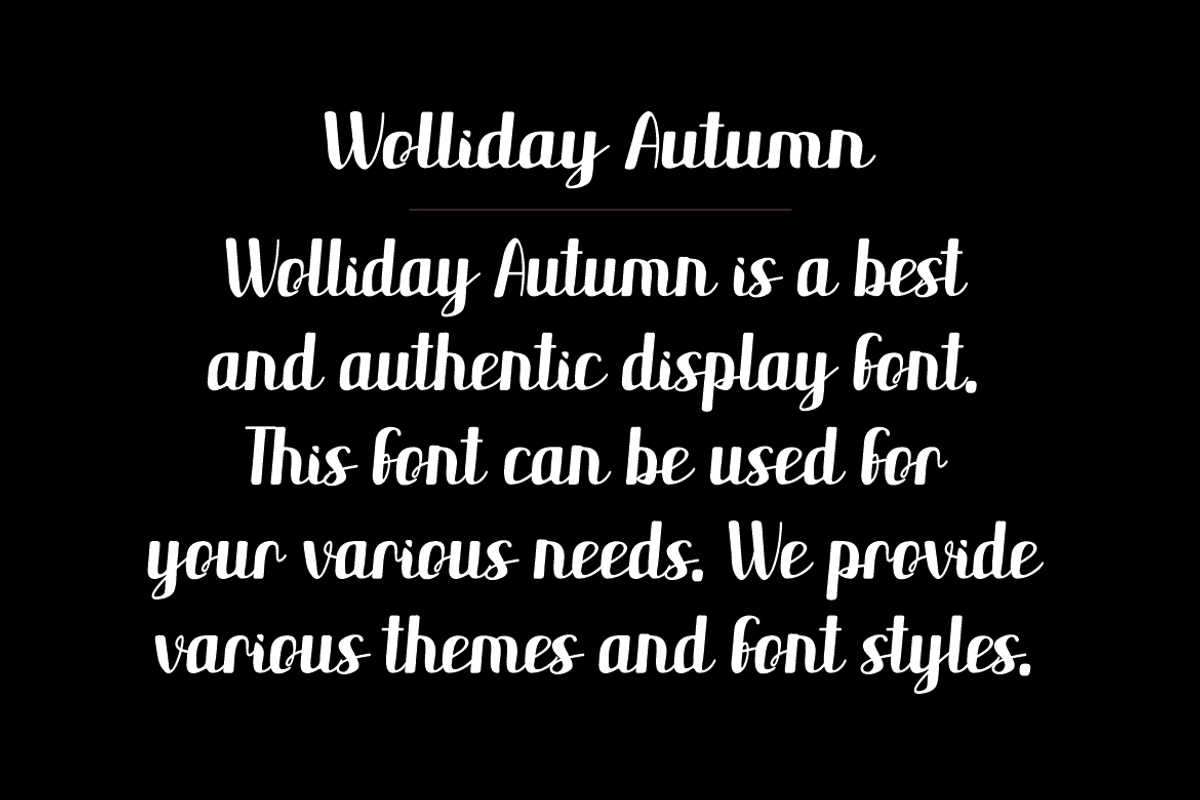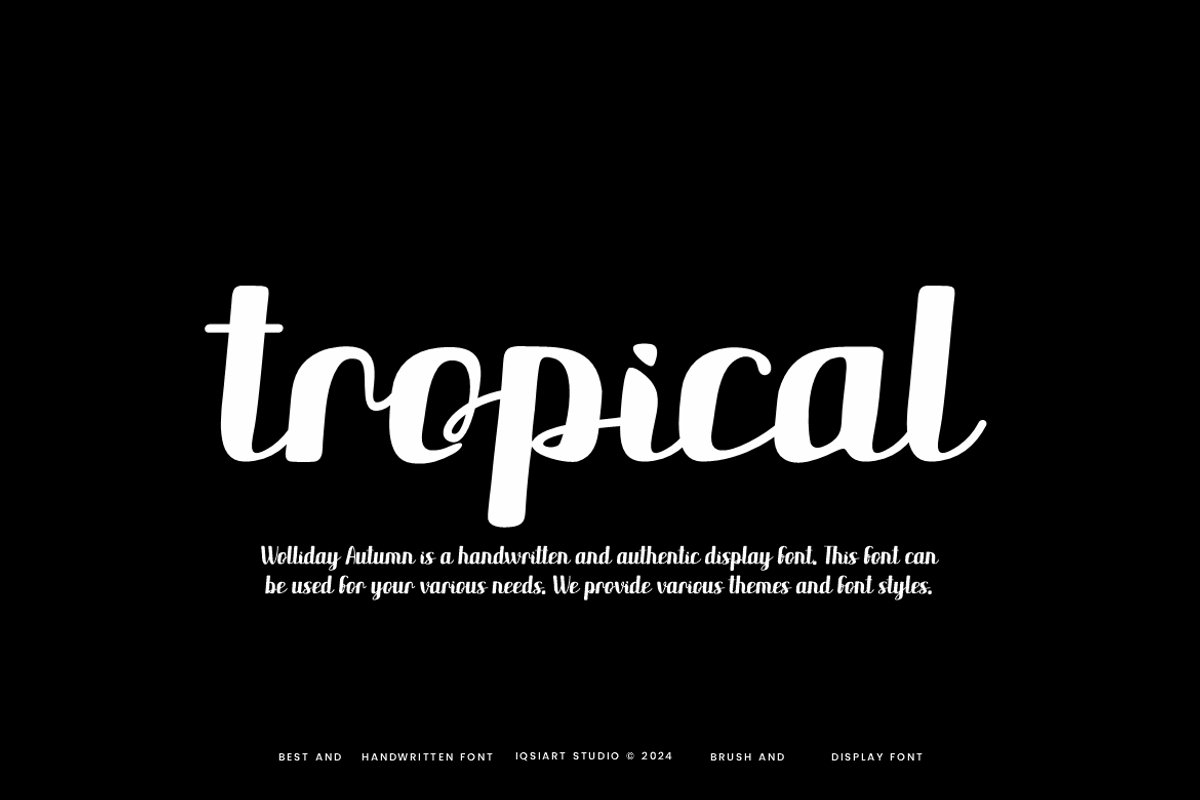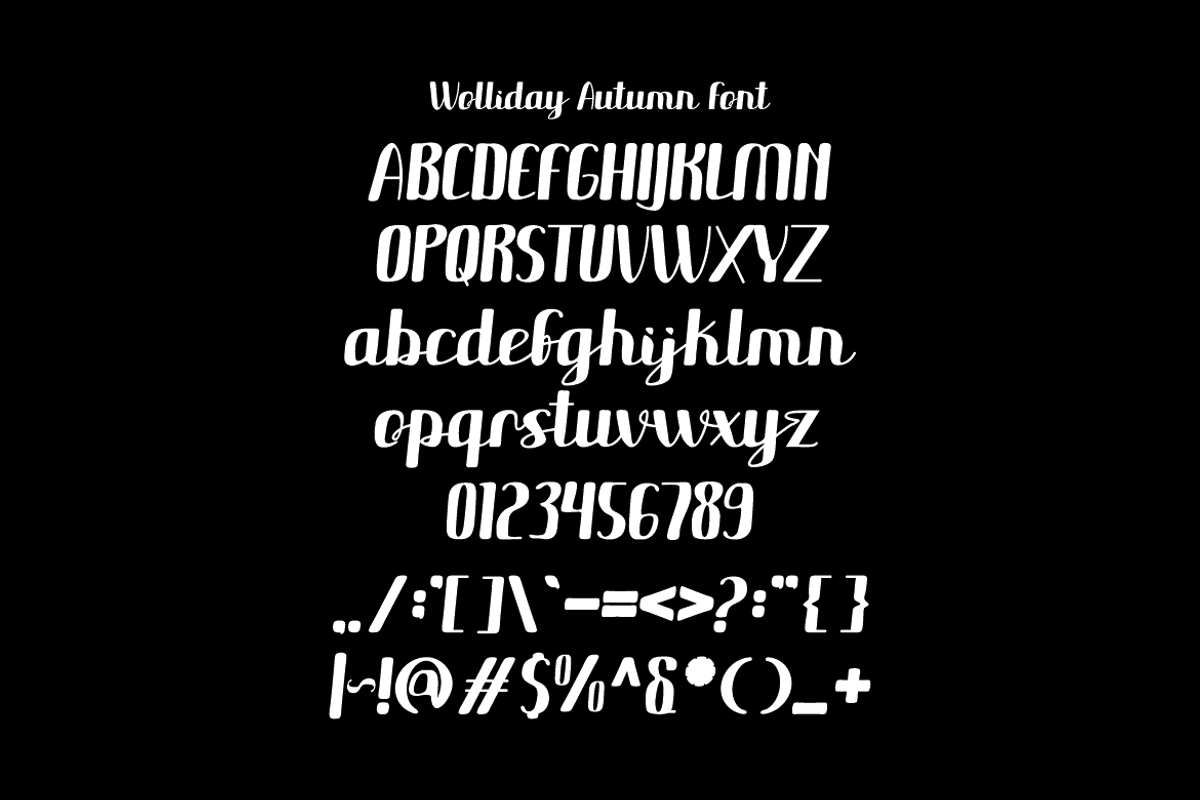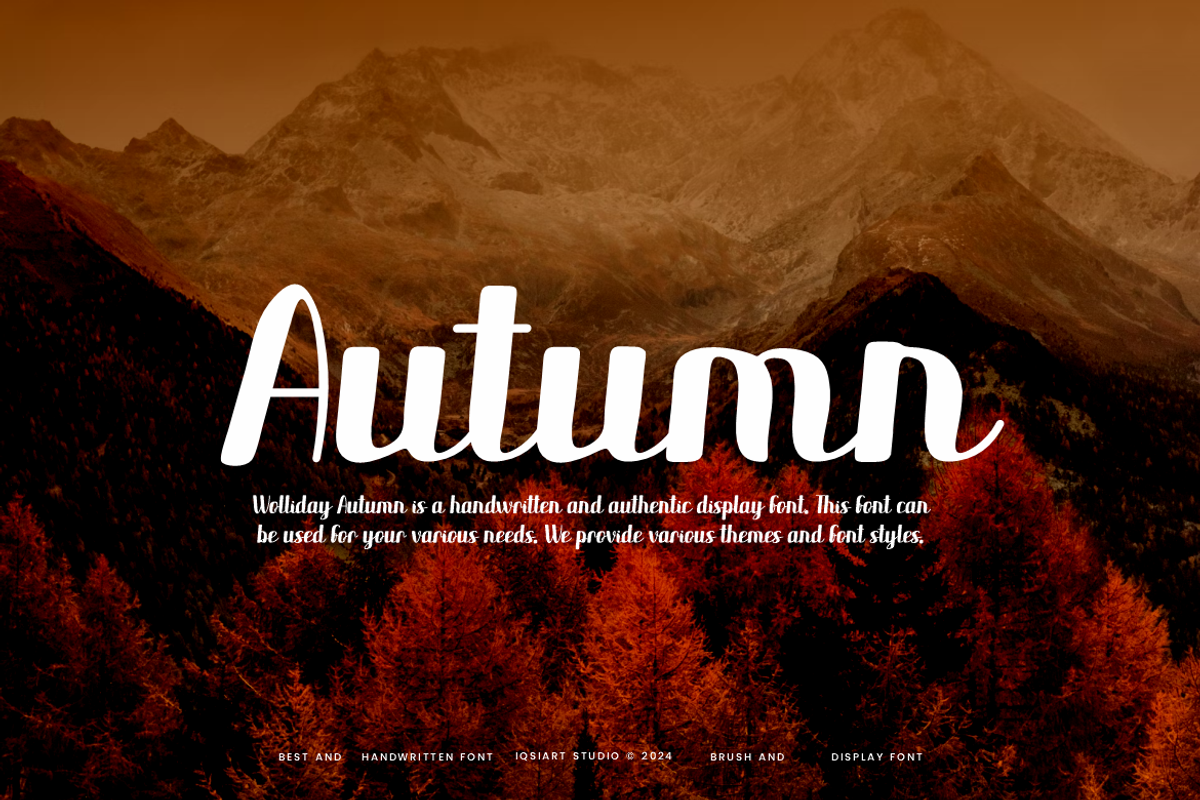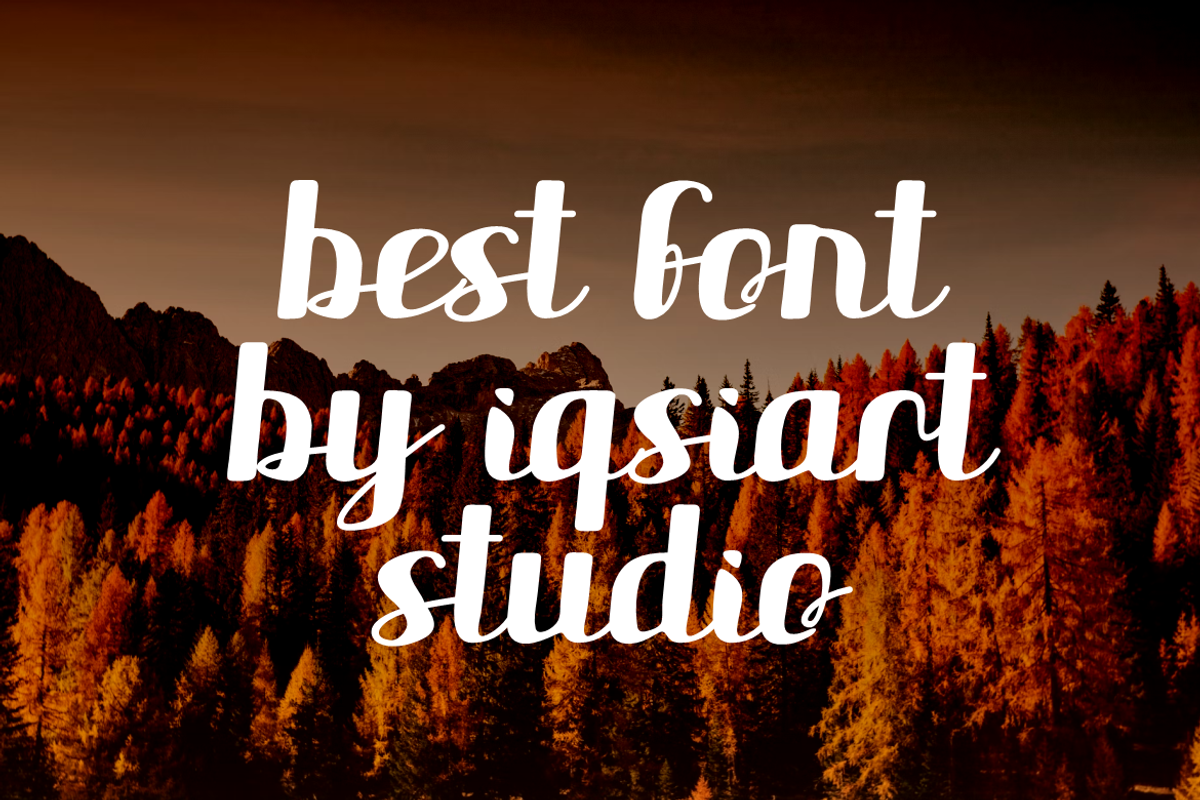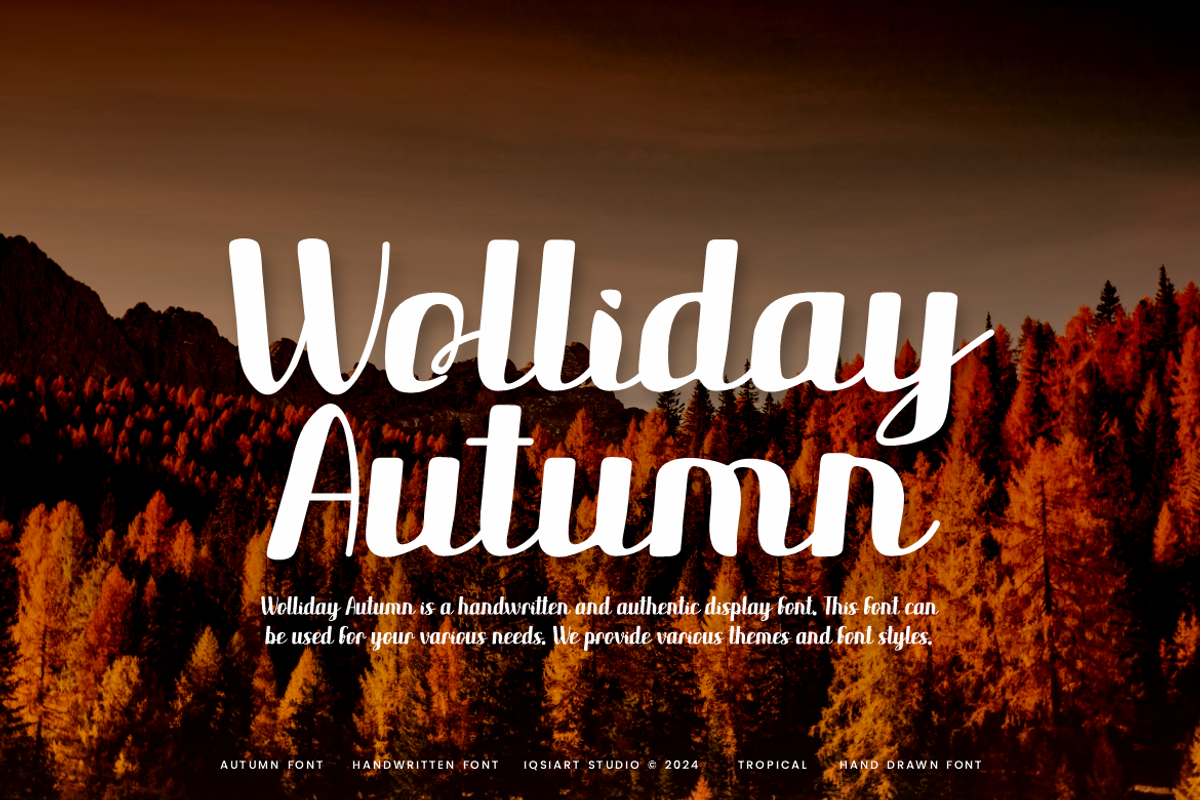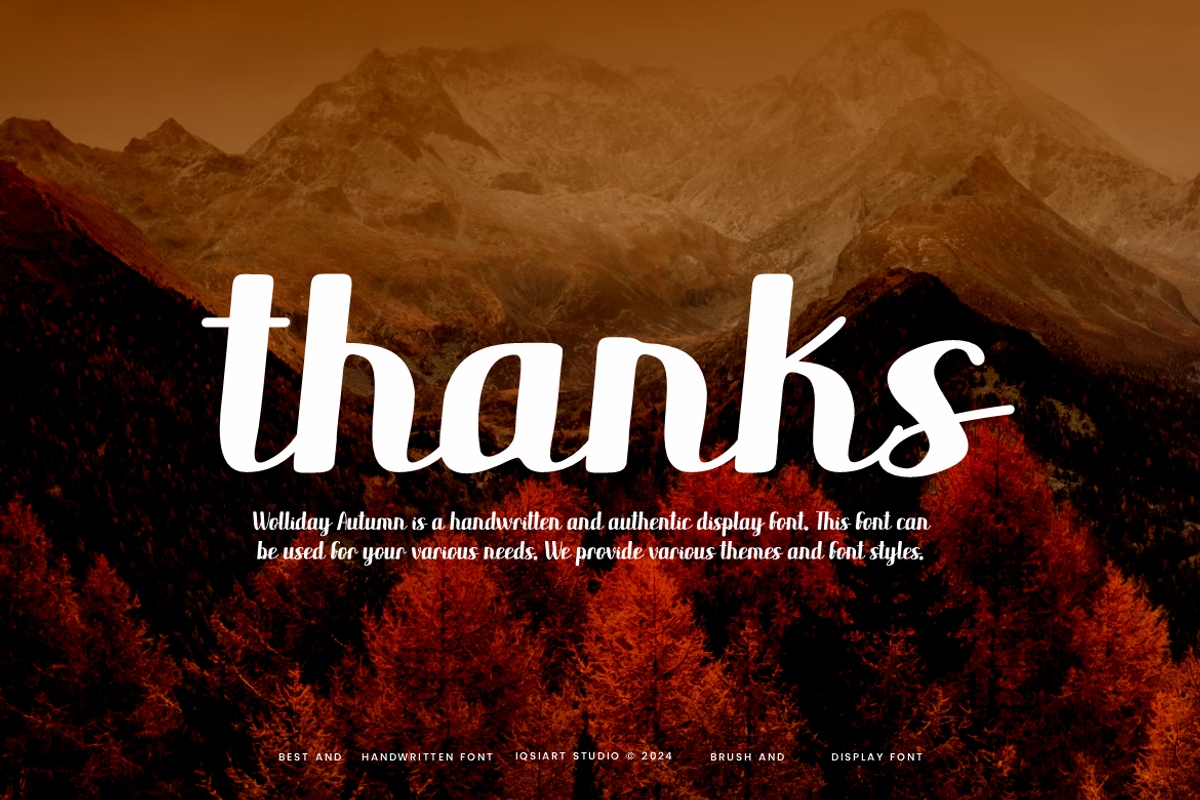
Wolliday Autumn - Handwritten Font
Wolliday Autumn Font is a best and authentic display font. This font can be used for your various needs. We provide various themes and font styles. visit our profile to get a wide variety of themes and different font styles you need.